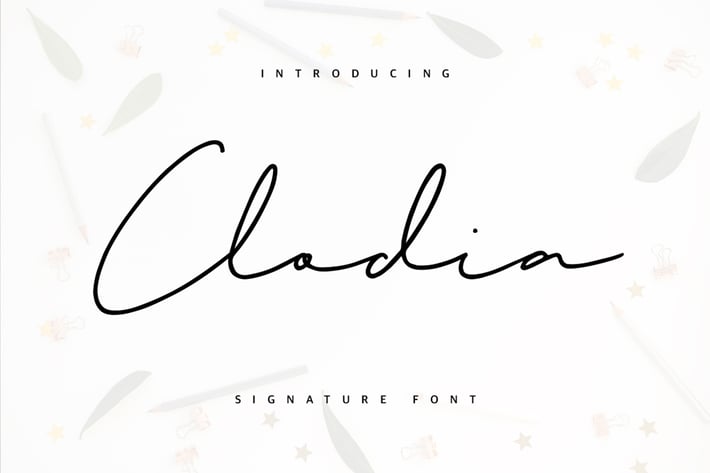
Clodia Signature Font
Give your designs an authentic handcrafted feel. “Clodia Signature Font” is perfectly suited to stationery, logos and much more.